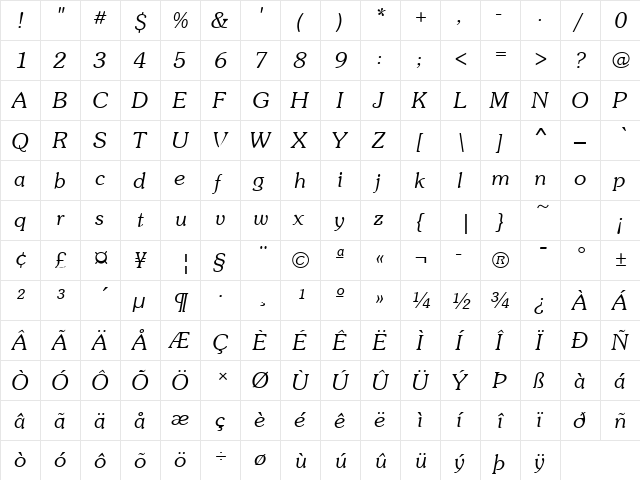
SunsetLH Italic
Design Context for SunsetLH Typeface
SunsetLH offers clean, dependable letterforms without strong stylistic allegiance, making it a practical choice for designers who need flexibility. The slanted form adds forward momentum and visual energy.